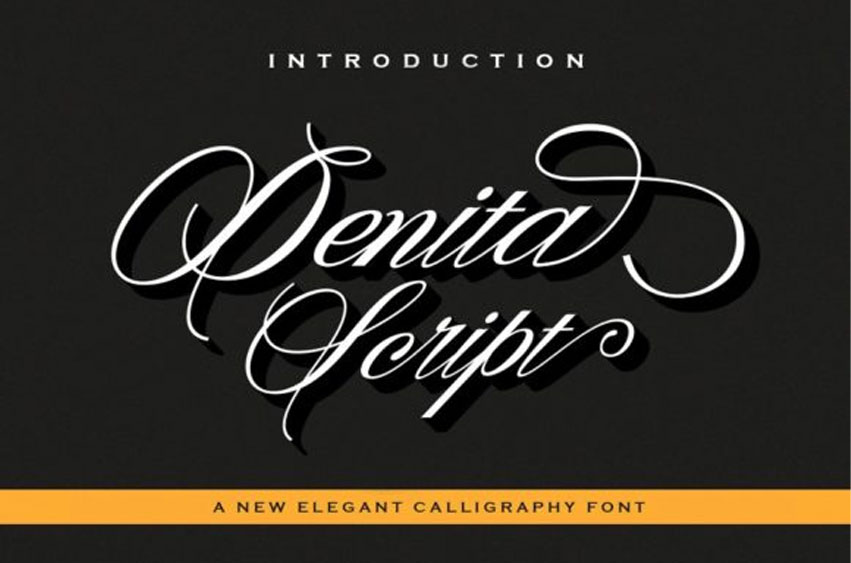
Denita Font is a simply beautiful and legible script that will add a sophisticated touch to any creative idea.
Perfectly crafted to meet all your design needs.